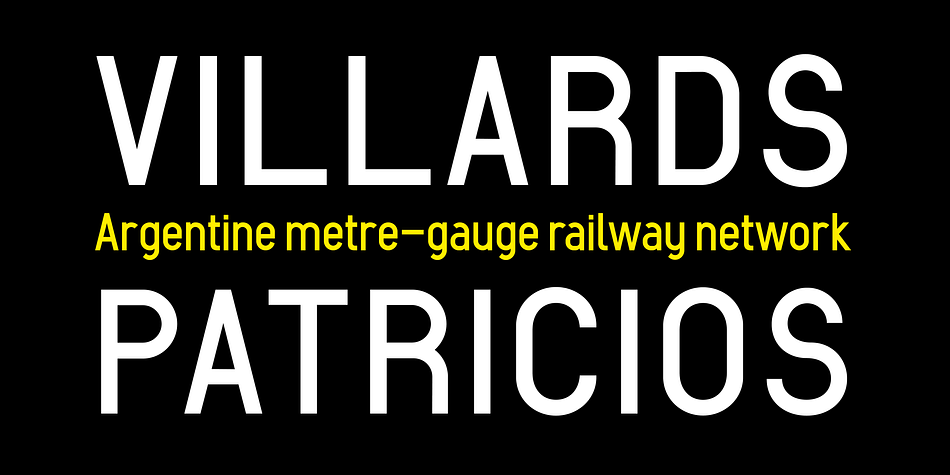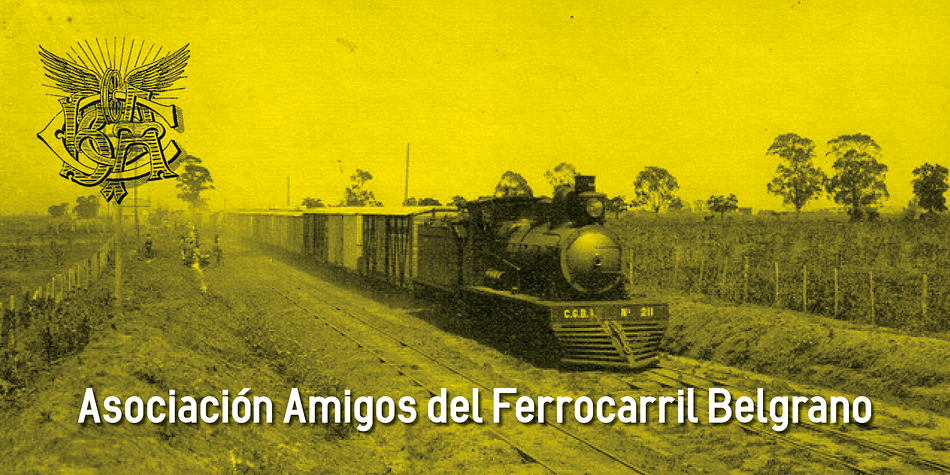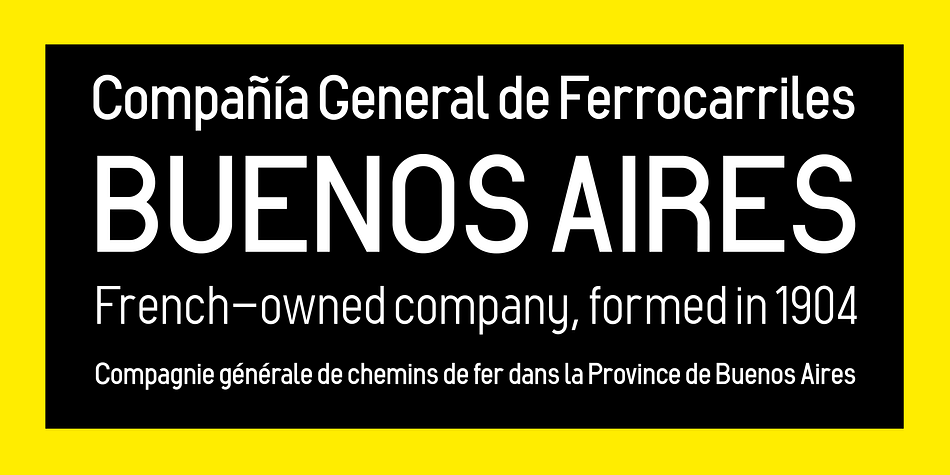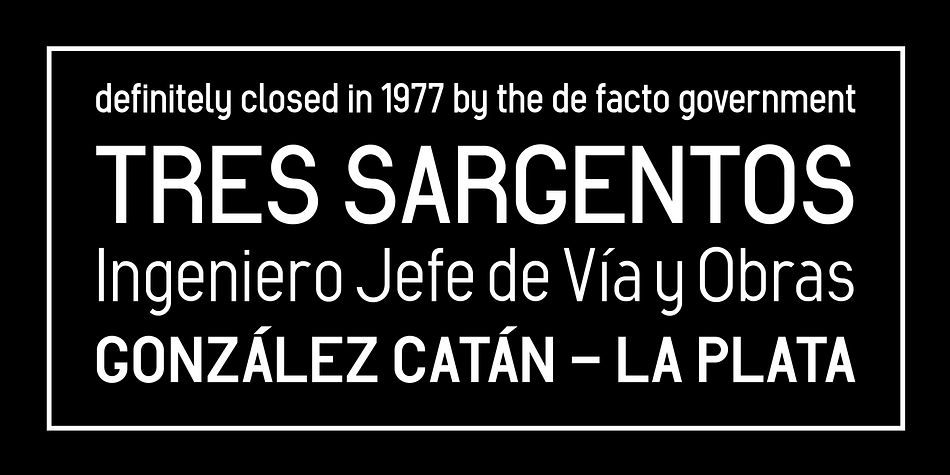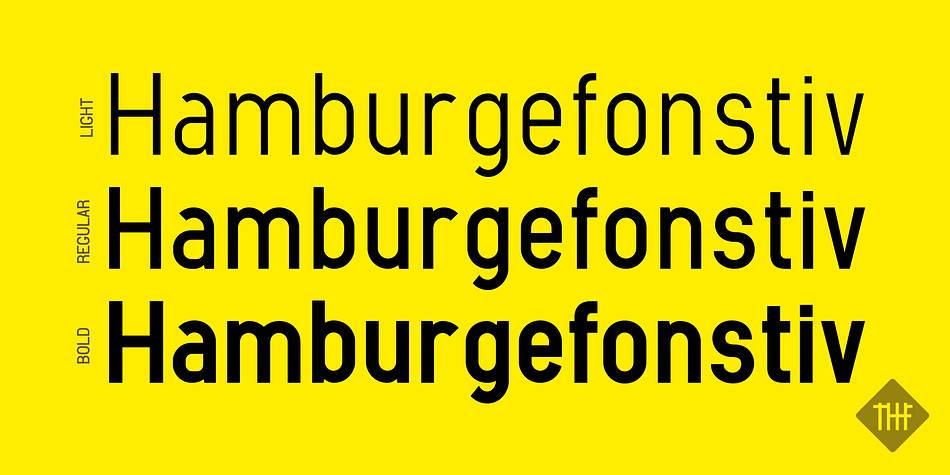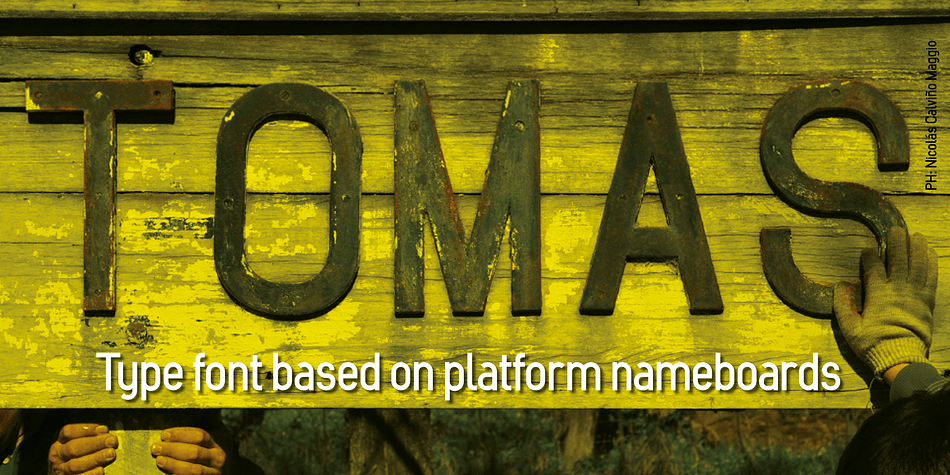
Compania Railwail
Designed by Fabio Ares, Compania Railwail is a sans serif font family. This typeface has three styles and was published by Fabio Ares.
Compania Railway is a product of argentine typographic archeology project called “Tipografía Histórica Ferroviaria” (Fabio Ares & Octavio Osores, since 2012). Is about the signboards of the stations of the French–owned company Compagnie générale de chemins de fer dans la Province de Buenos Aires (1904-1977).
The letter of this signboards can be described as display type, with geometric shapes and without line modulation.
Foundry Fabio Ares
Designer Fabio Ares